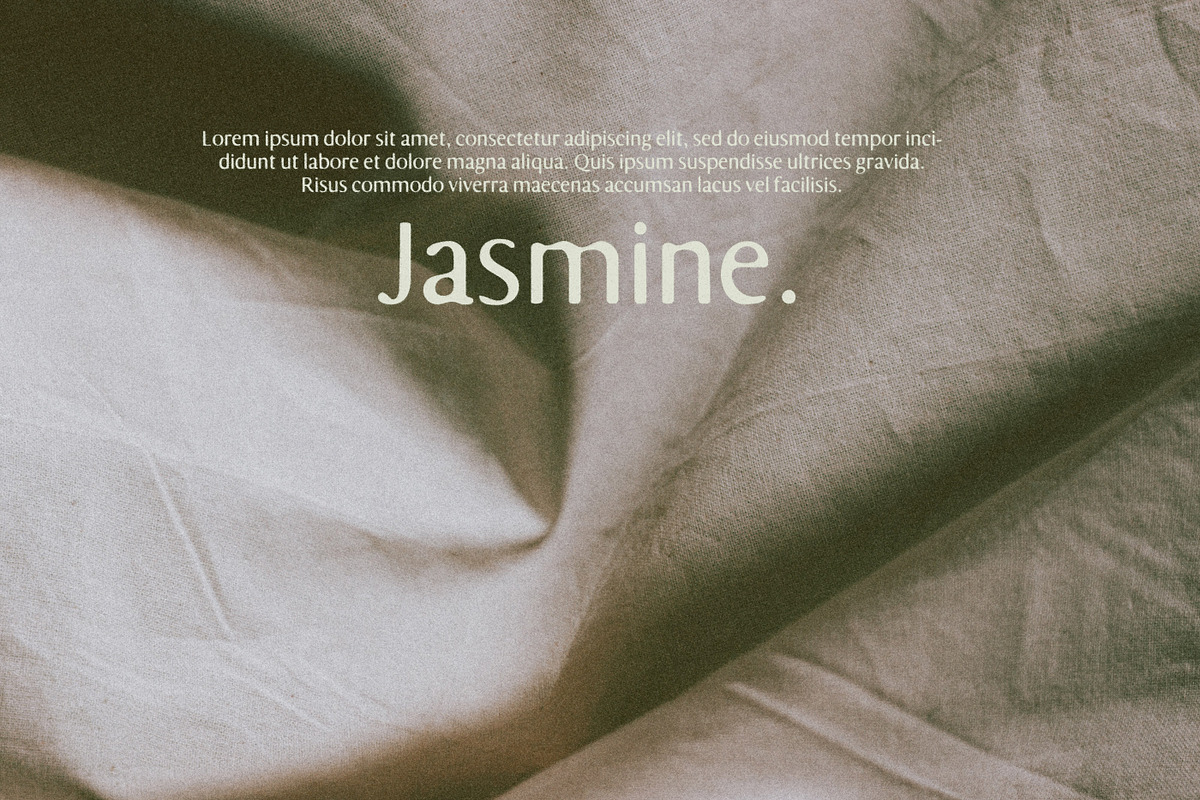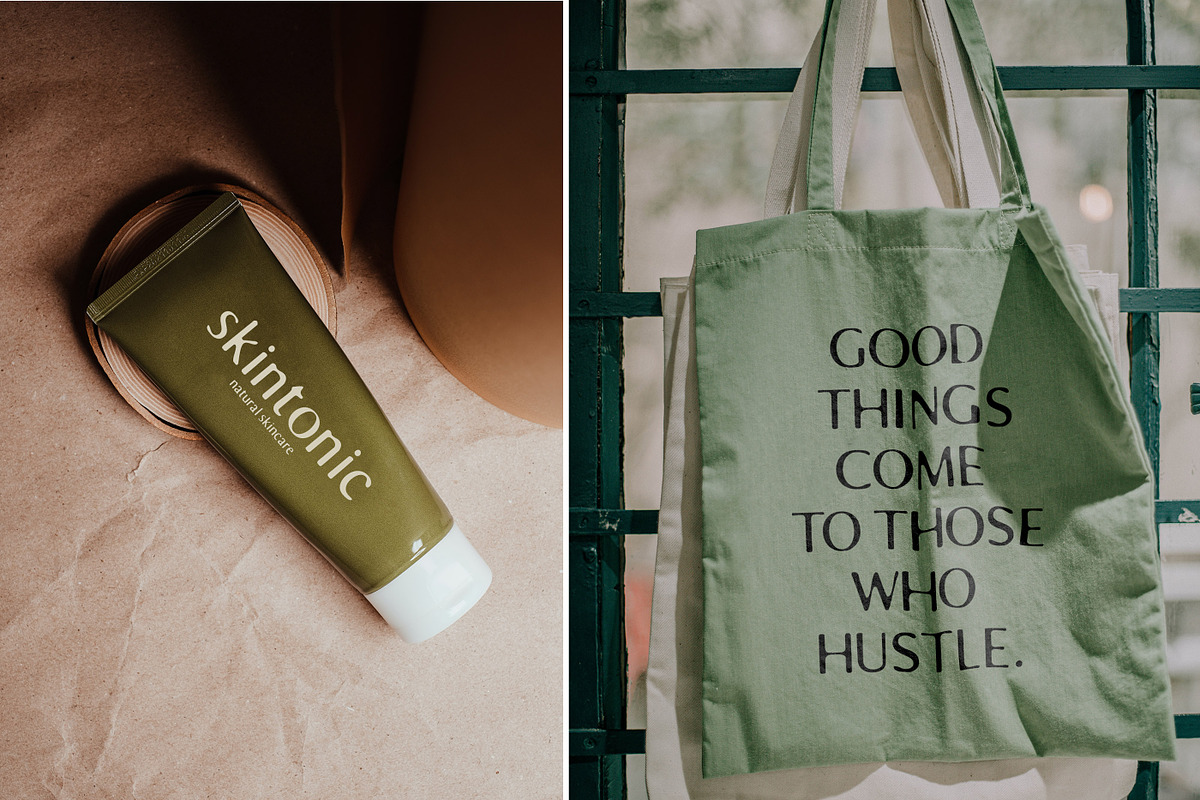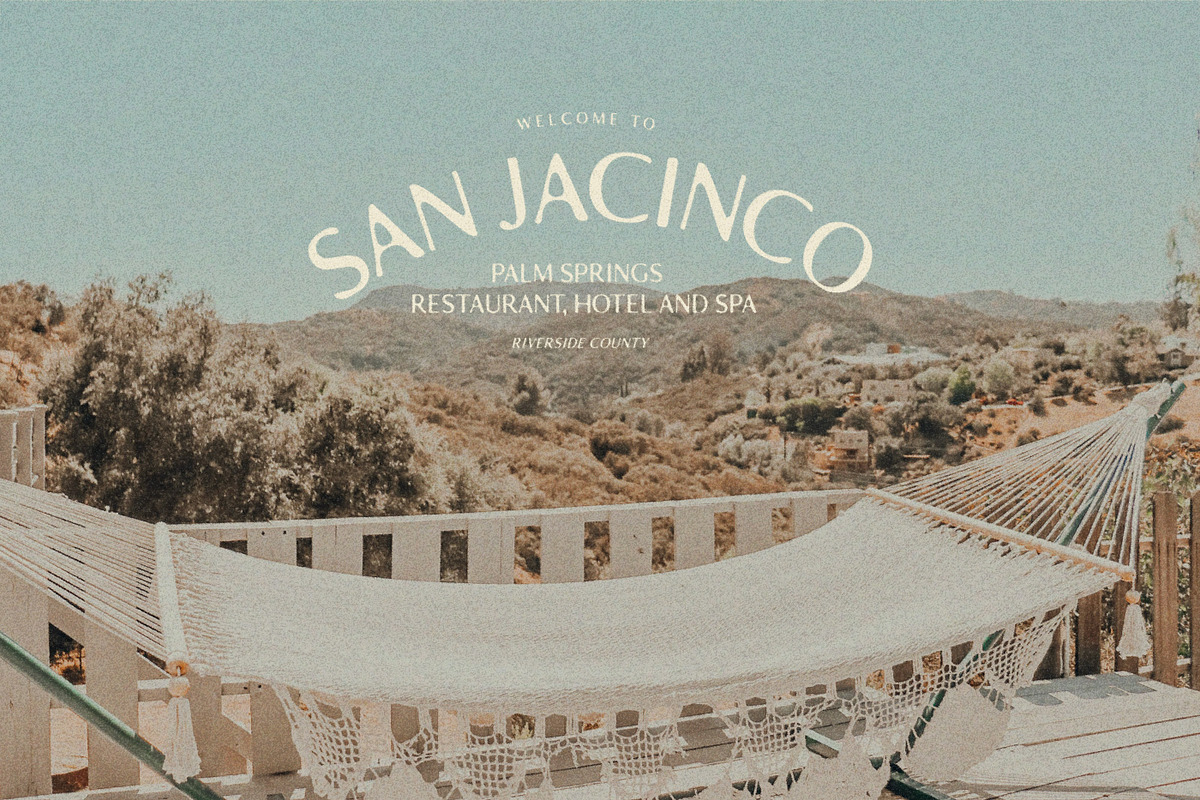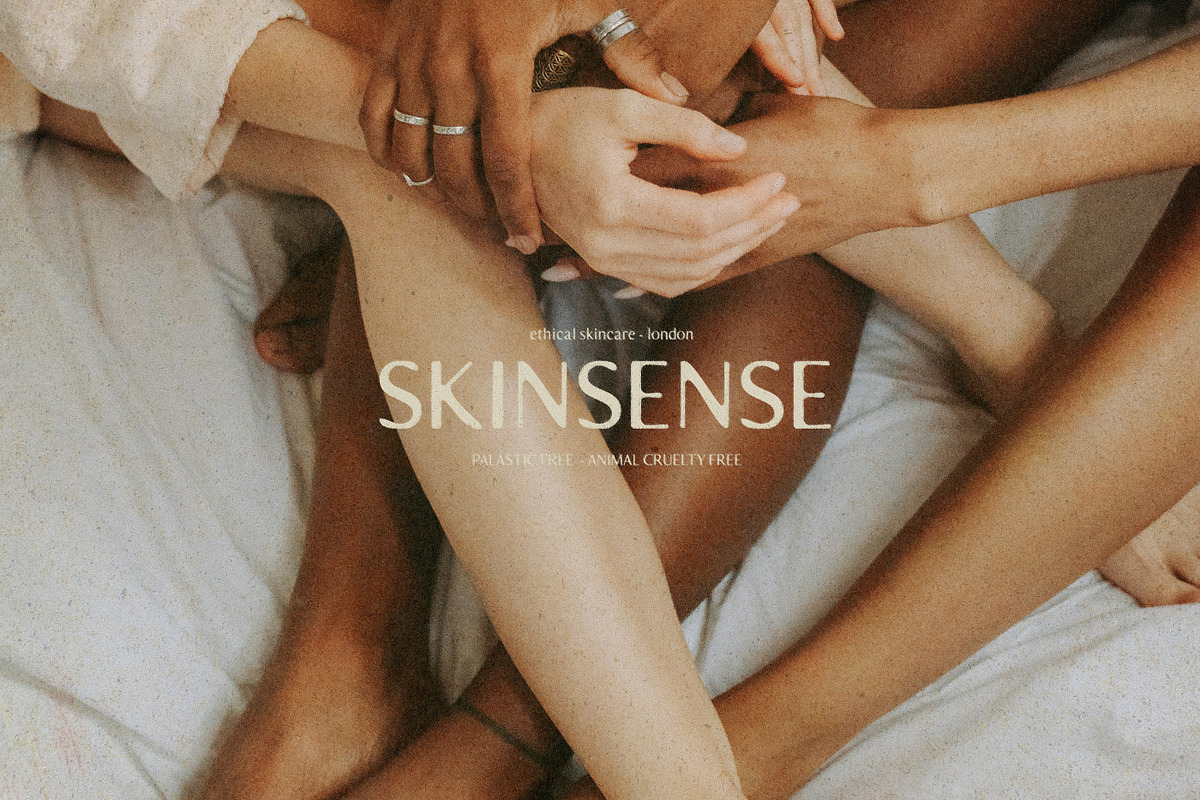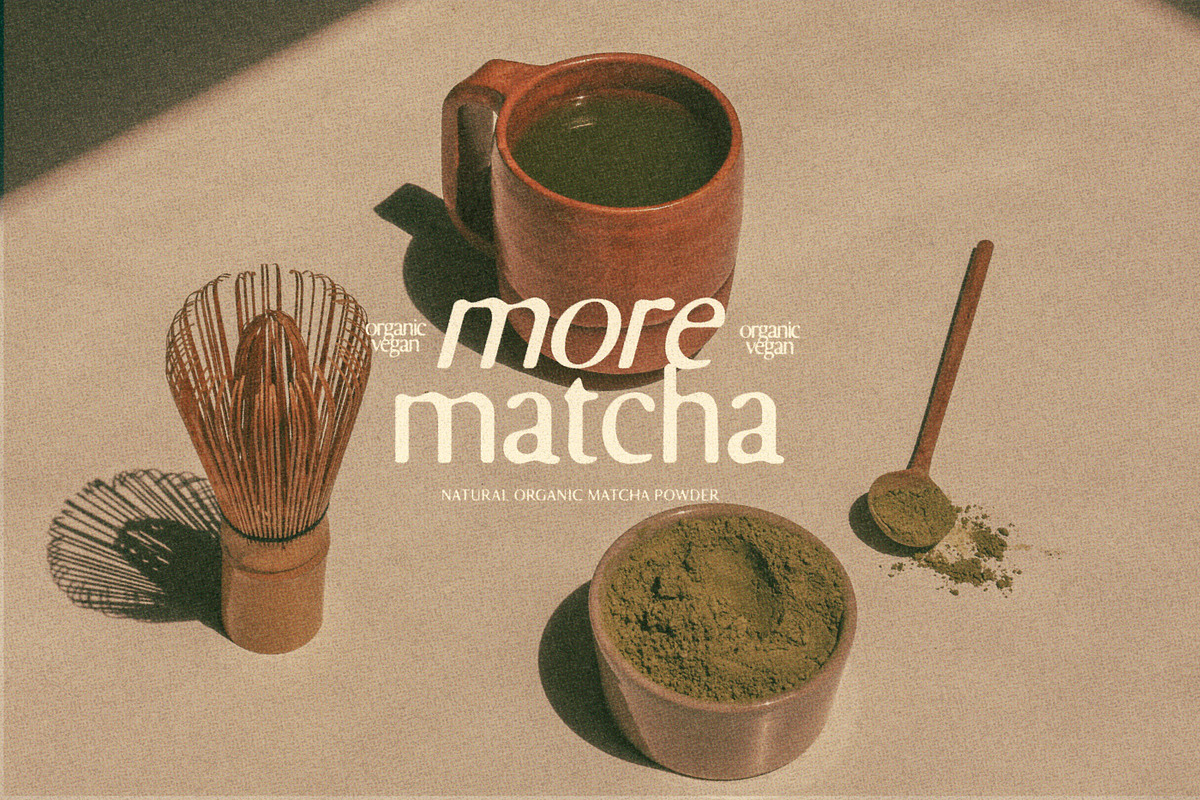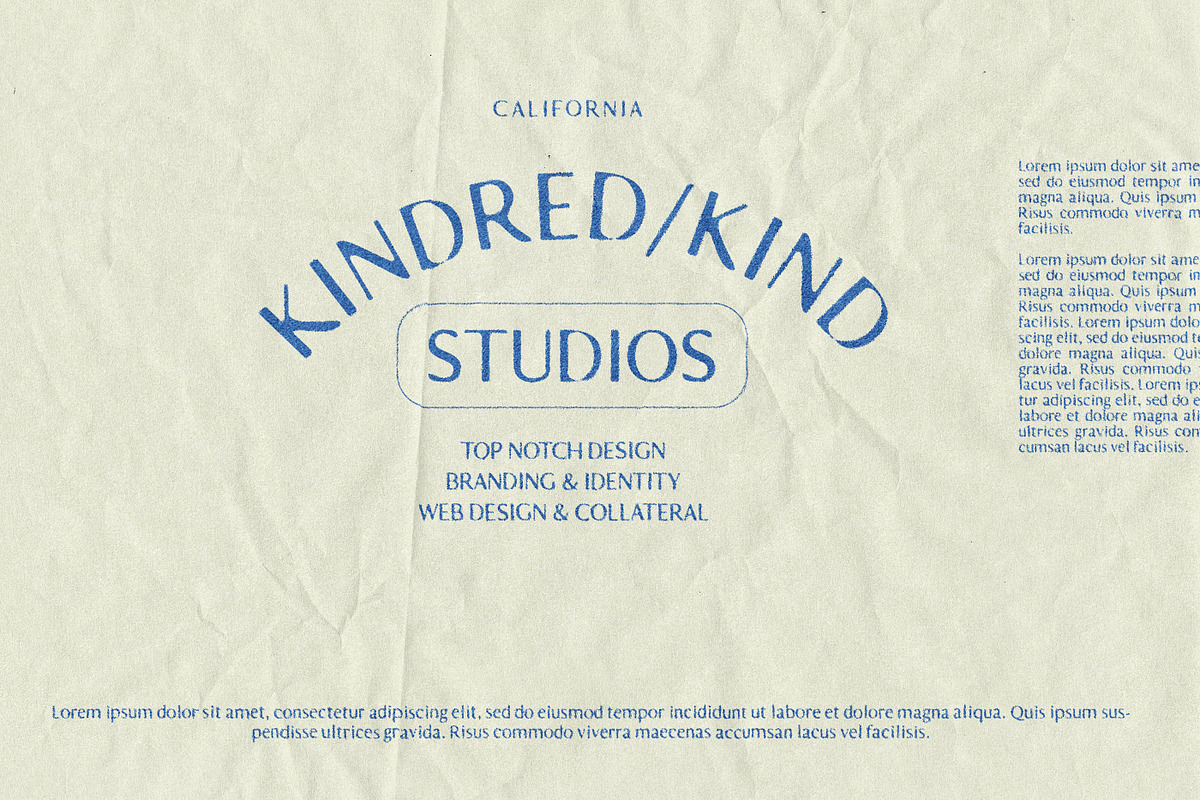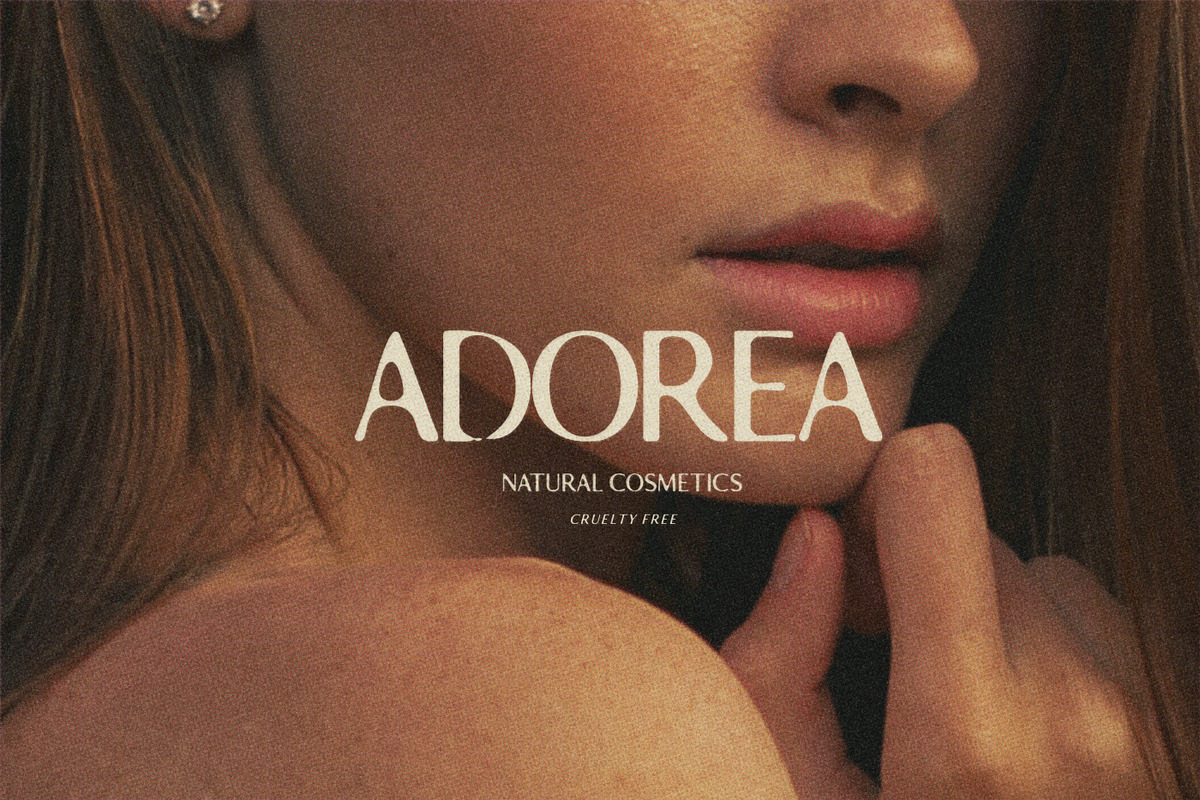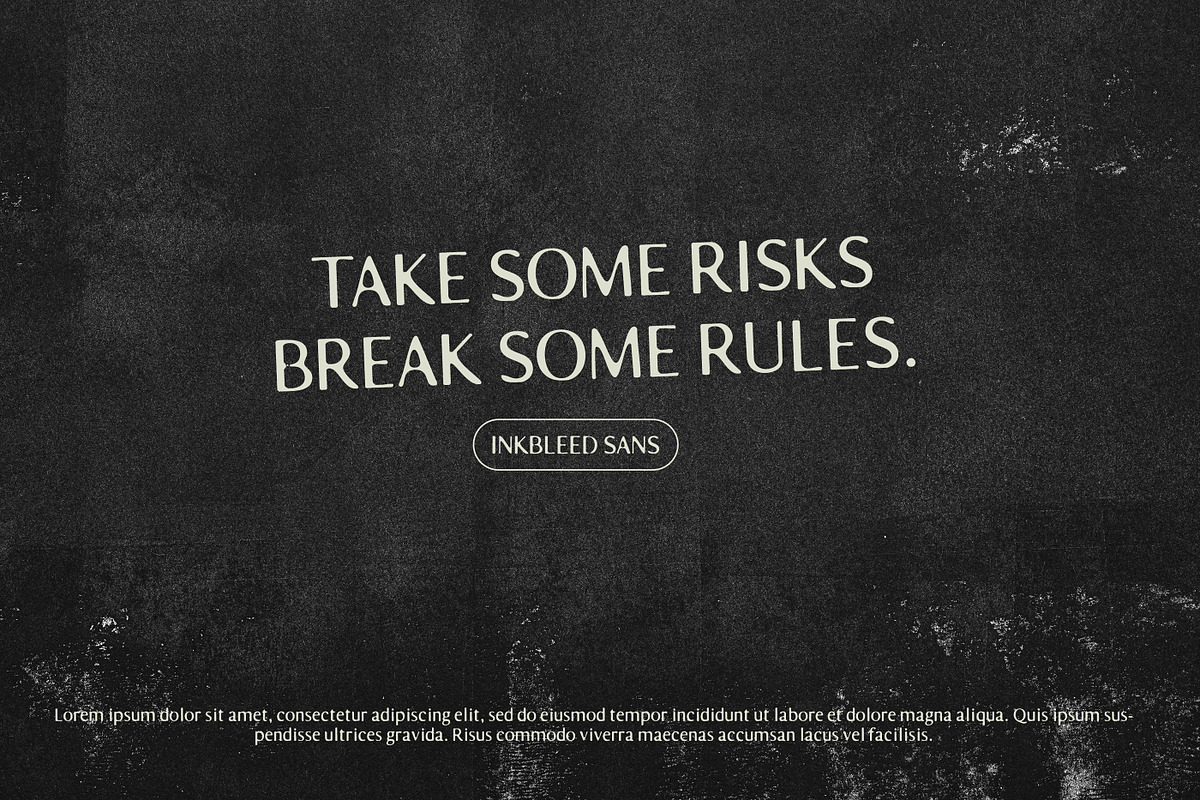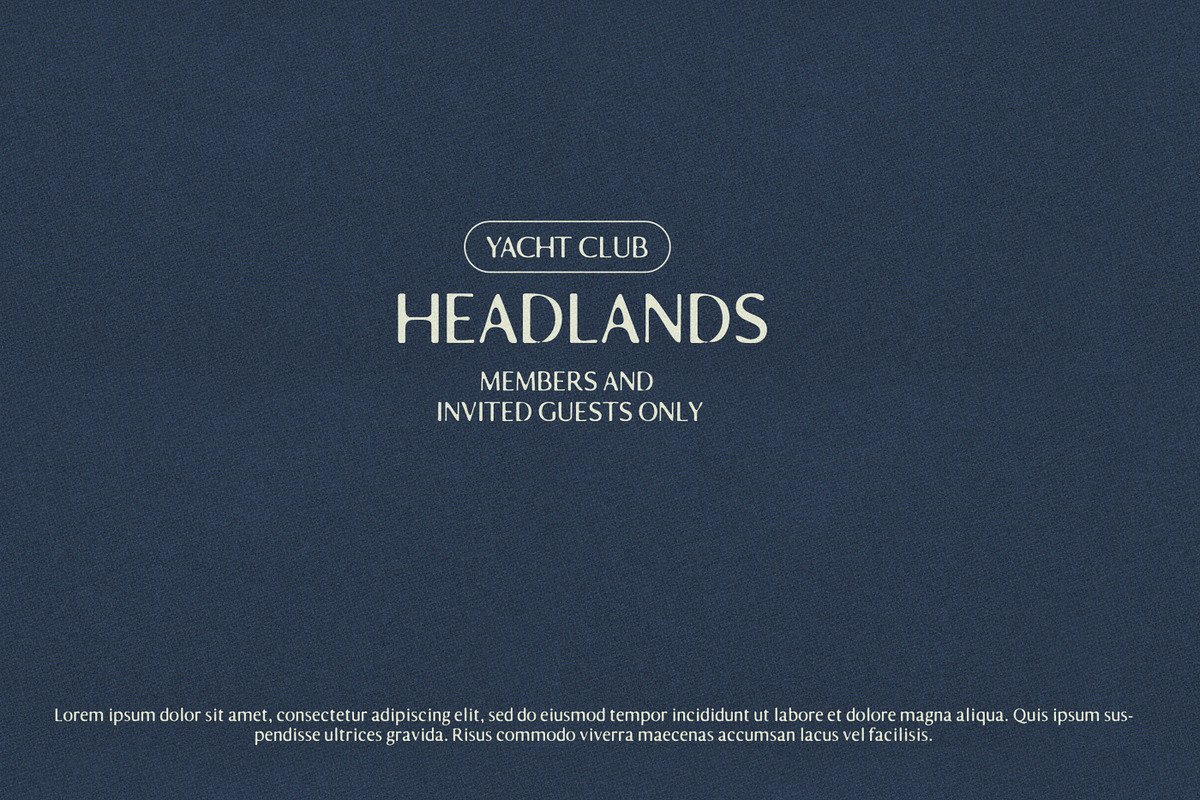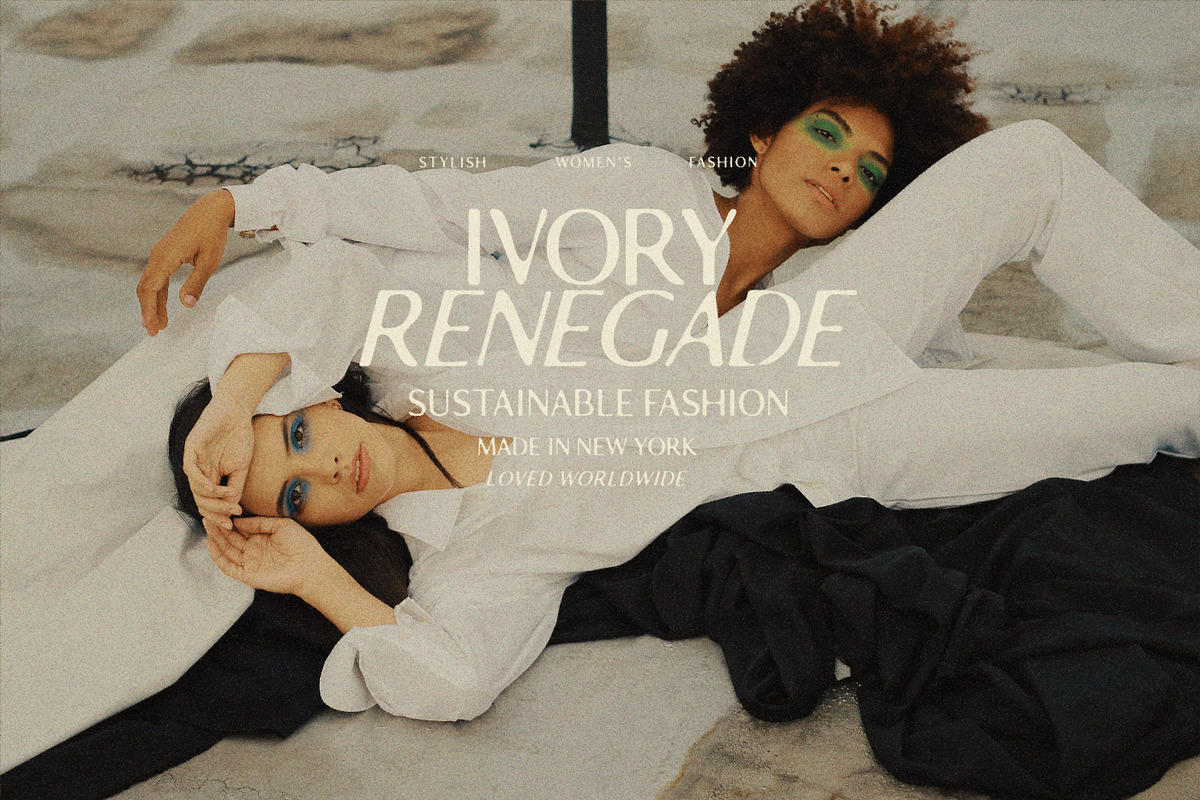
Inkbleed Sans Typeface (2 fonts)
Say hello to Inkbleed Sans - A rustic, minimal, printing-pressed / 'bleeding ink' sans serif - for when you need something a little less 'clean'.
Inkbleed is great at smaller sizes too. Don't forget to play with your letterspacing for different effects. An oblique version is included.
Great for branding, merch, book covers, posters, packaging and so much more.